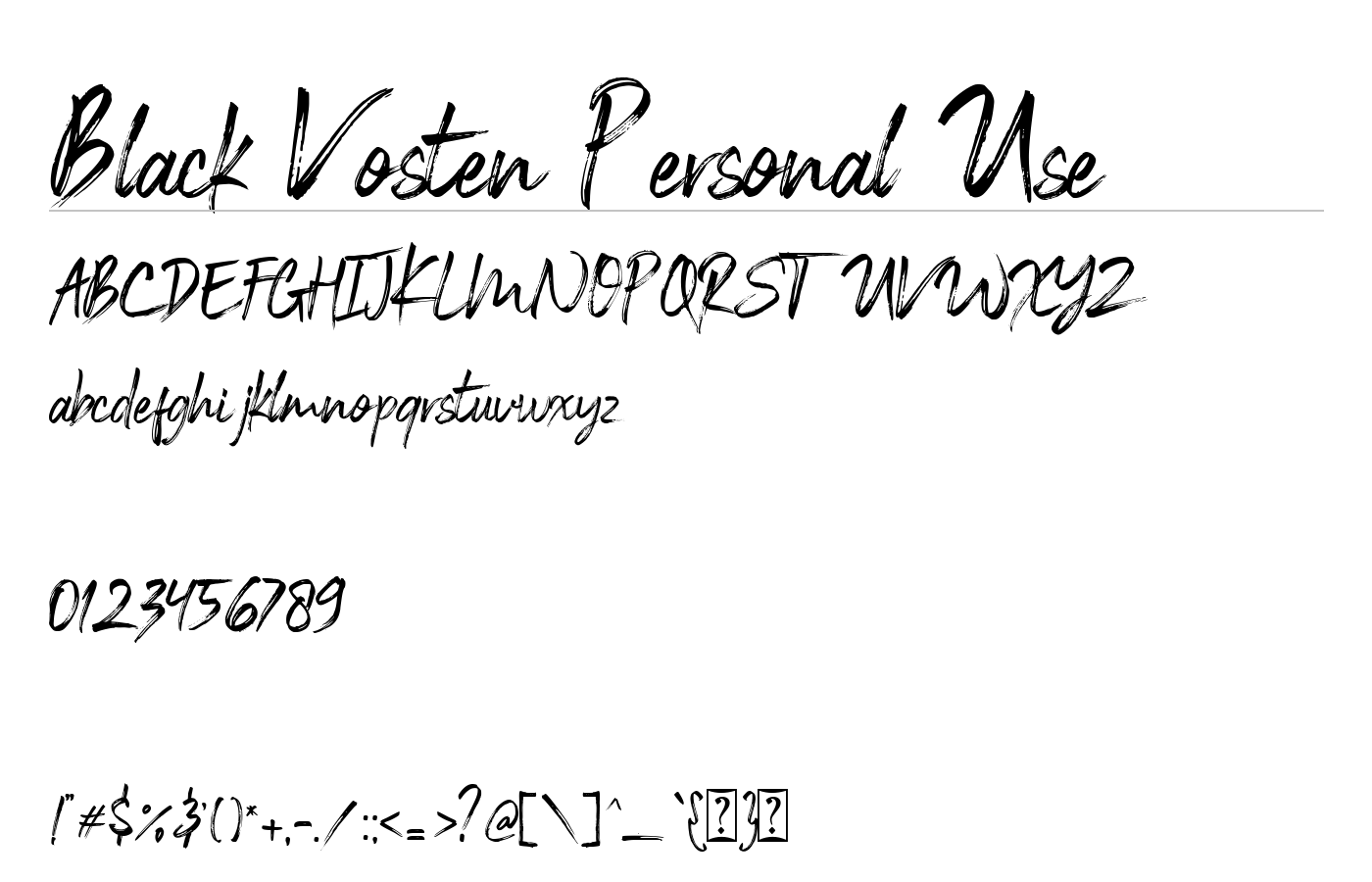
Black Vosten Personal Use is a dynamic handwritten brush script font with a bold, expressive style that mimics natural ink strokes. It features irregular, textured lines and lively letterforms, giving it a raw, artistic feel perfect for creative projects, casual branding, or trendy headlines. This font’s energetic personality makes it ideal for designs that want to evoke authenticity and a personal touch.
Black Vosten Personal Use Font
About Black Vosten Personal Use Font